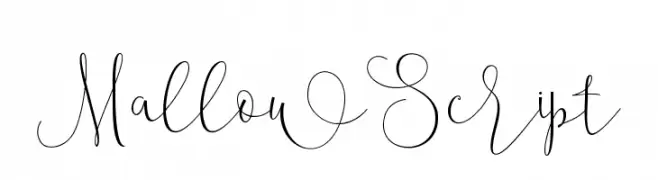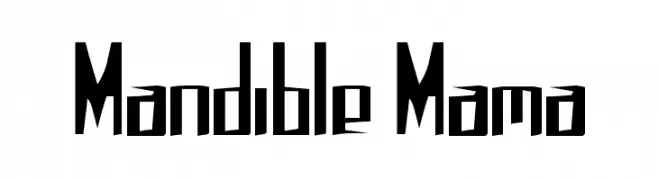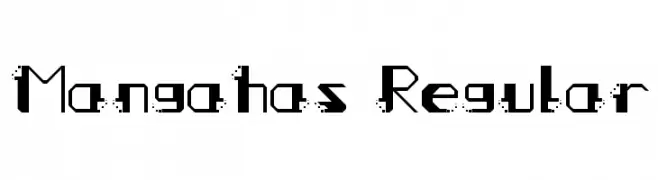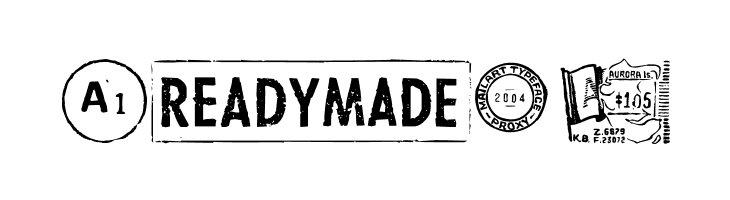
• Mailart
An eclectic and artistic display font with diverse, whimsical character designs.
• Mailart Graphics
A decorative, mail art-inspired graphic and text stamp collection with varied styles.
• Make My Day
A playful, handwritten font with bold strokes and a casual style.
• MallowScript
An elegant script font with flowing, intricate loops and flourishes.
• Mandible Mama
• Mangahas Regular
A bold, geometric font with a futuristic and modern design.
• Manhattan Script
An elegant and flowing script font with intricate loops and swashes.
• Manilla Oddtype
• manko
A modern, outlined font with geometric and futuristic elements.
• marketing art desing
An elegant and flowing script font with ornate uppercase and smooth lowercase letters.